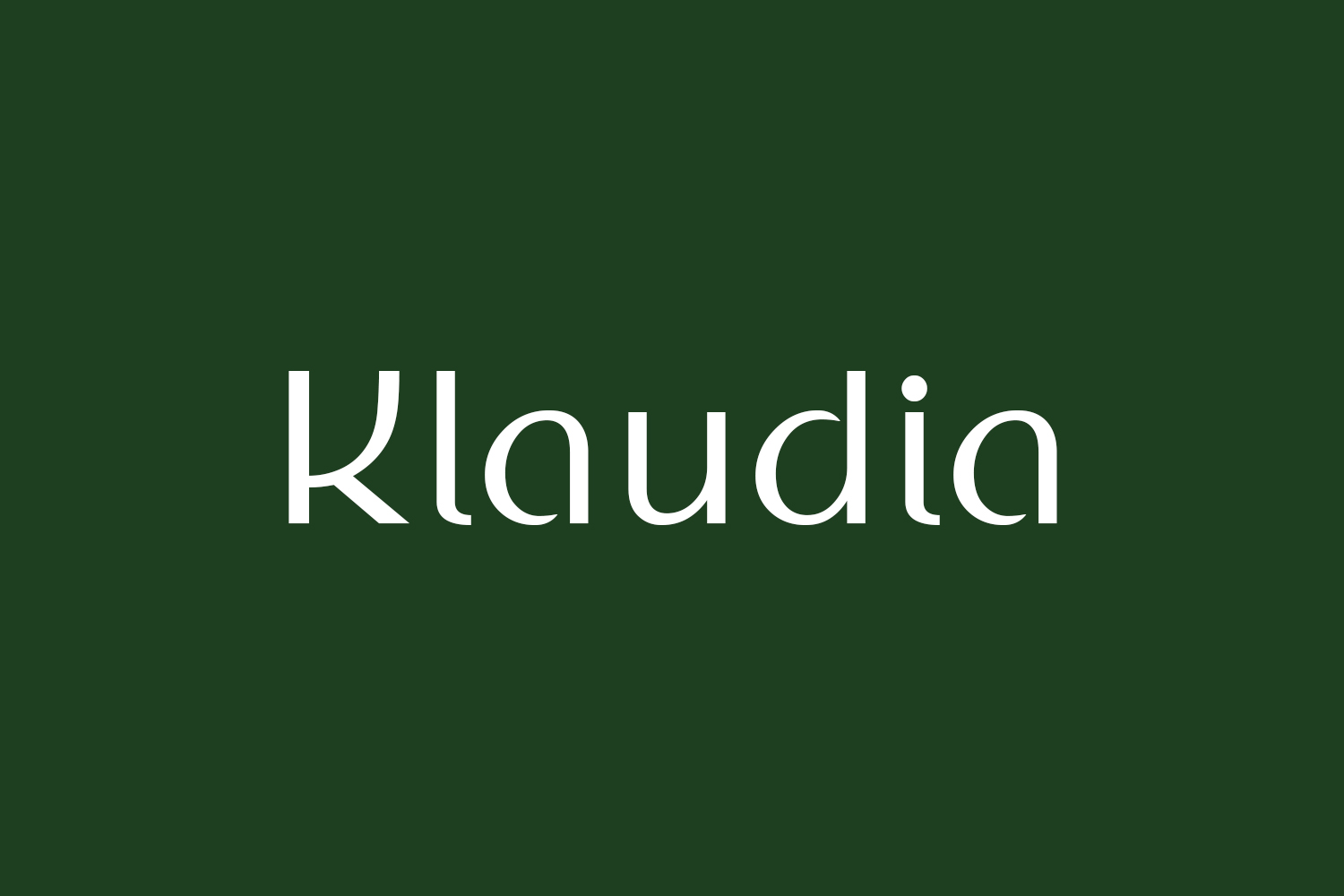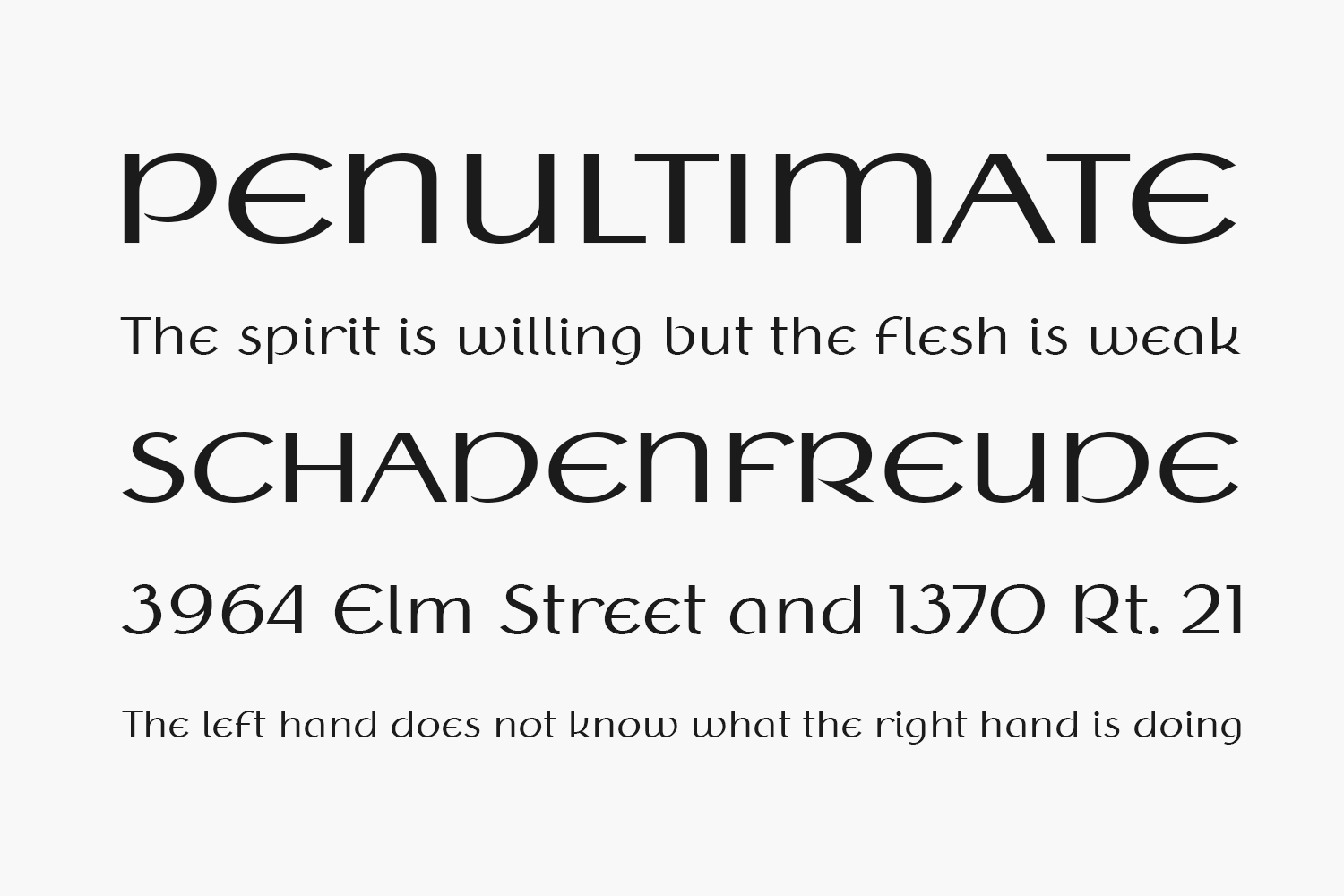
Klaudia Free Font Family is a free font that features a unique and eye-catching gothic design. This font is perfect for use in a wide range of design projects, including posters, flyers, branding, and more. The font is characterized by its sharp and bold lines, giving it a distinct and powerful appearance. Its unique style makes it perfect for designs that require a touch of sophistication, edginess, and elegance. Klaudia Free Font Family is free for personal use only.
Designed by Wojciech Kalinowski